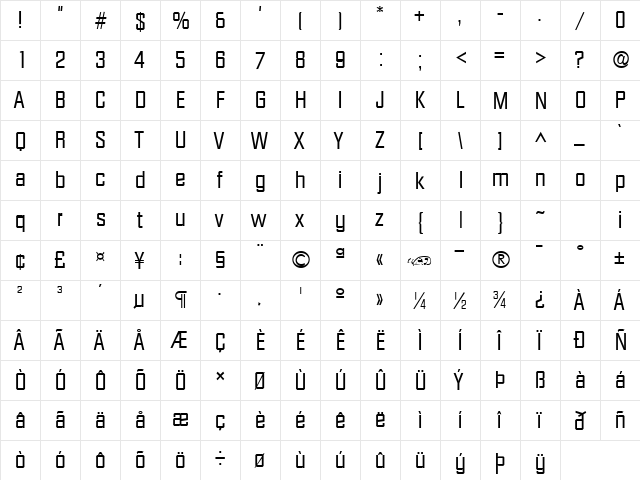
Facet normal
Design Context for Facet Typeface
Facet is a composed and adaptable typeface that performs quietly and consistently across a wide range of design contexts.